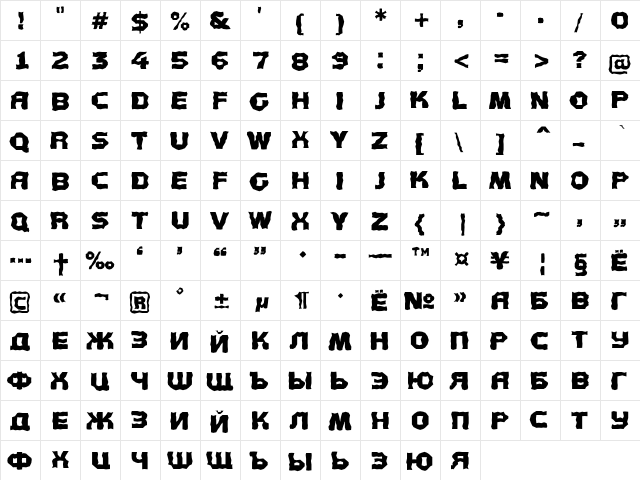
a_ConceptoTitulBroken Regular
Design Context for a_ConceptoTitulBroken Typeface
a_ConceptoTitulBroken is a composed and adaptable typeface that performs quietly and consistently across a wide range of design contexts.